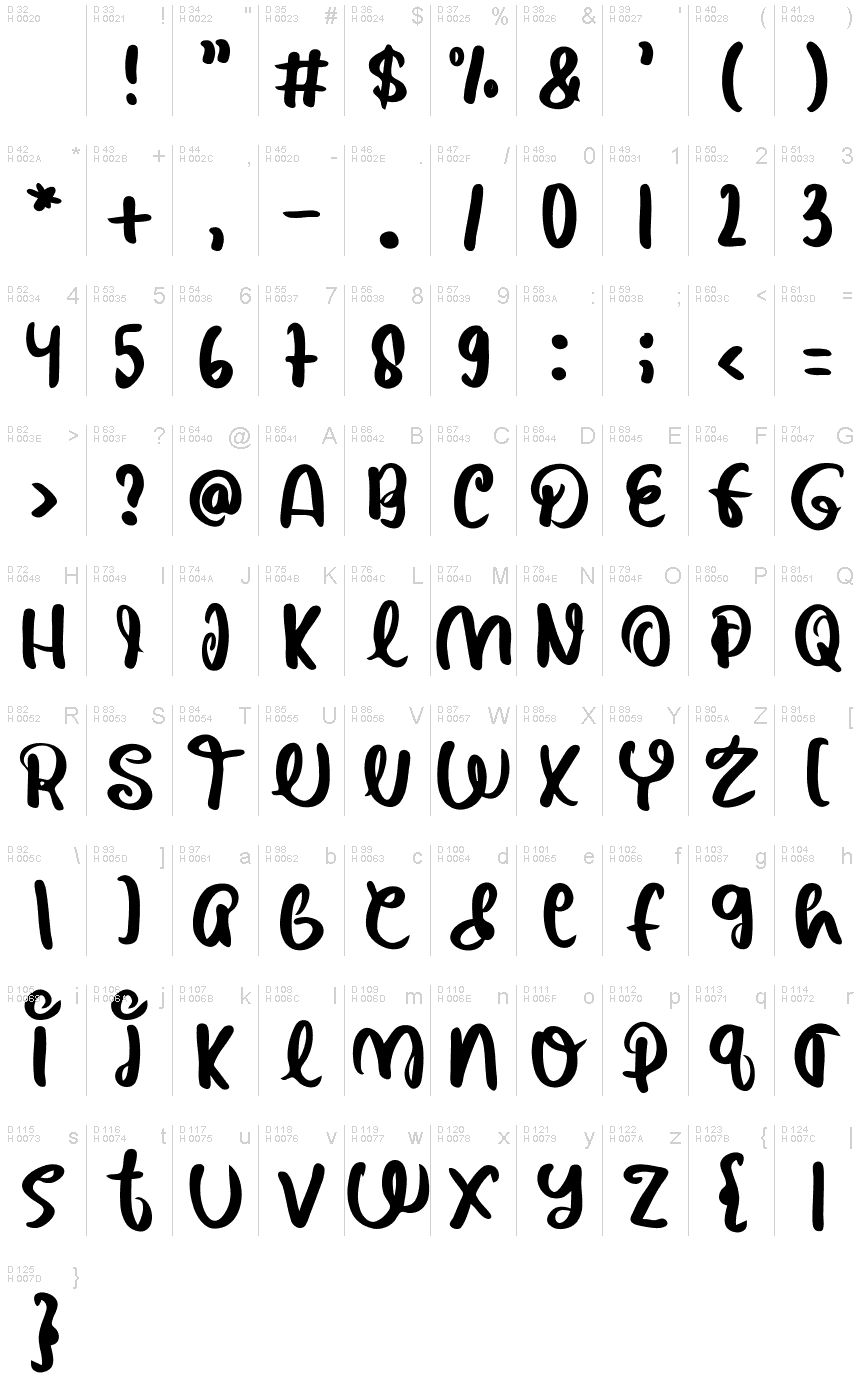
Diamont
Diamont is a smooth brush font designed by Share Font, perfect for adding a touch of fun and whimsy to your projects. With its Disney-inspired style, this semi-bold typeface is suitable for a range of designs, including children's books, party invitations, and social media graphics. Its smooth curves and elegant strokes will bring joy and playfulness to any project. Whether you're looking to create something magical or simply want to inject some personality into your work, Diamont is the perfect choice. Try it out today and watch your designs sparkle!